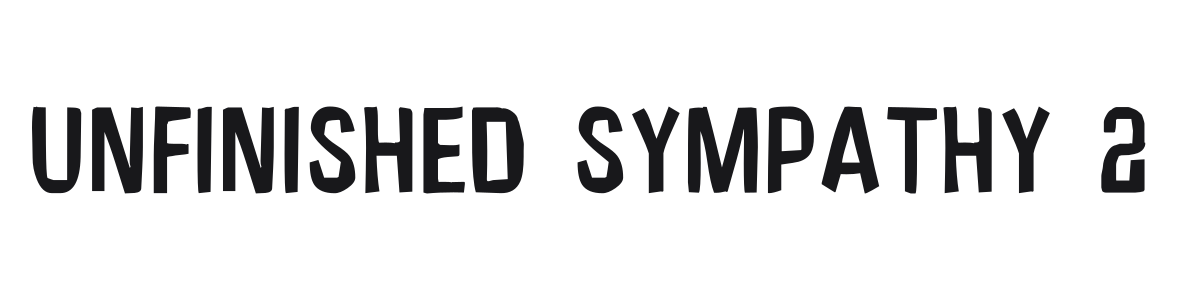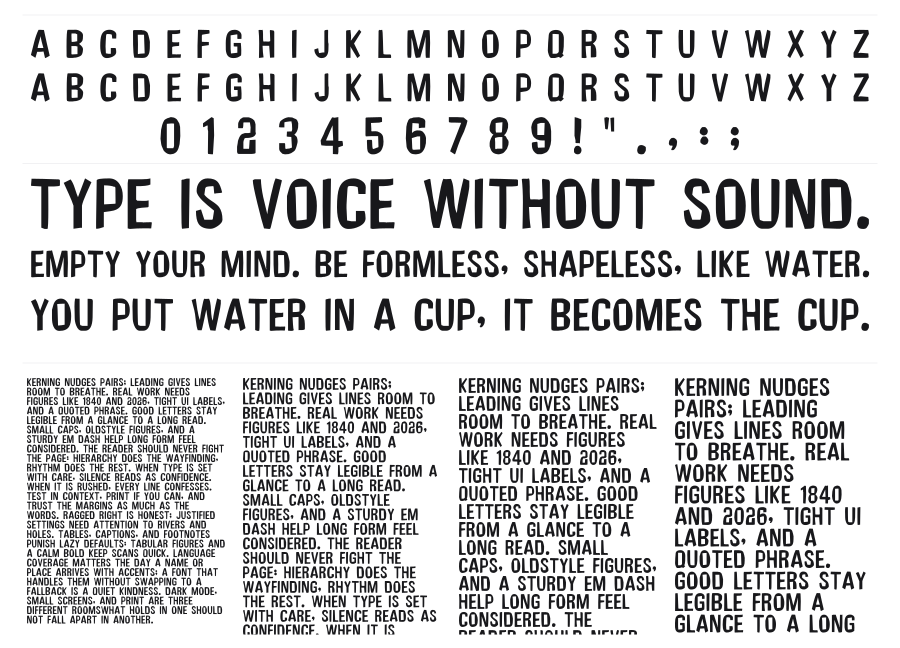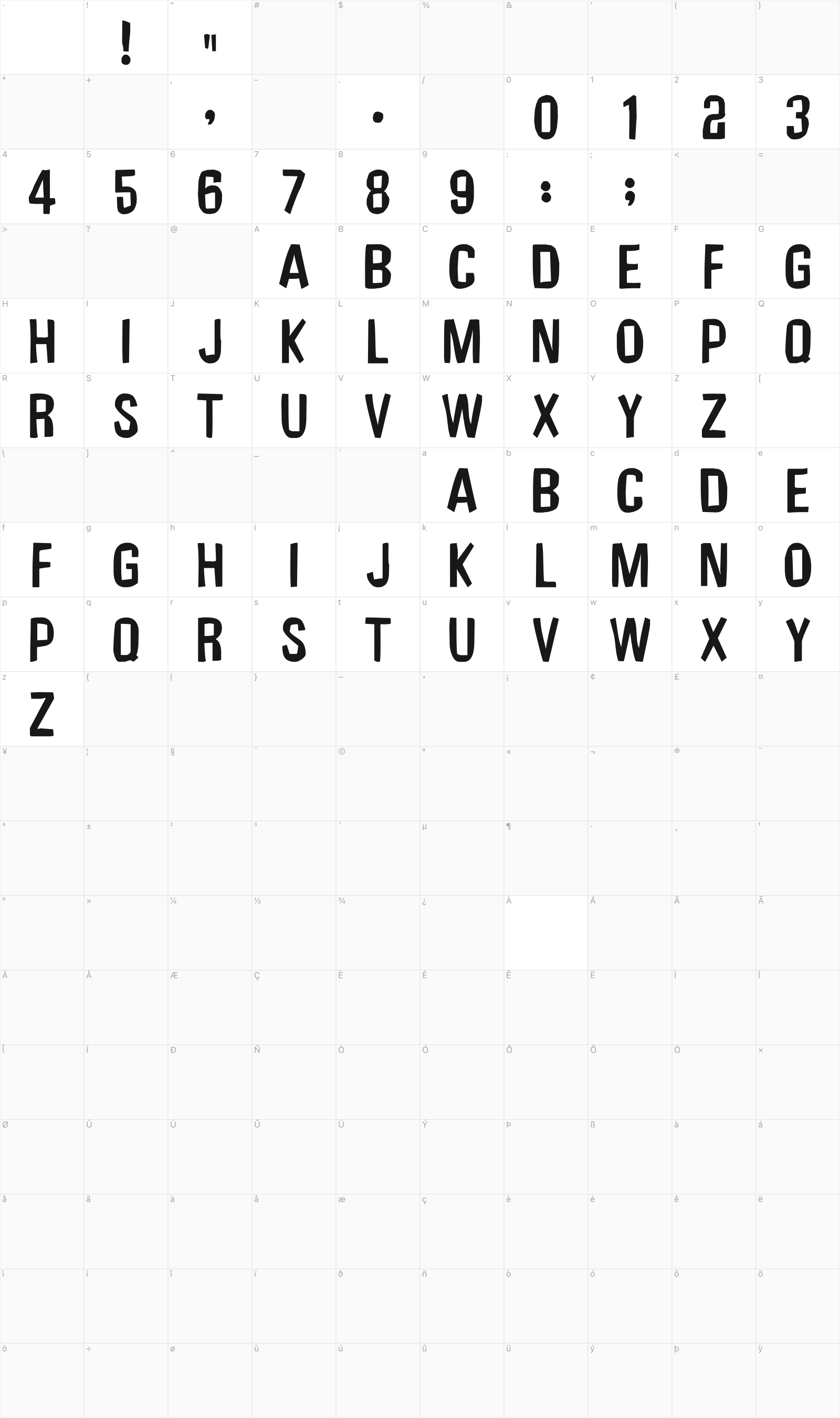
Unfinished Sympathy 2
Unfinished Sympathy 2 is a bold condensed sans-serif with deliberate cuts and notches that give each character a rough, unfinished quality. The irregularities feel intentional rather than accidental, landing somewhere between a stencil aesthetic and grunge-era hand-lettering. It carries weight and attitude in equal measure, built for headlines that need to feel a little dangerous.